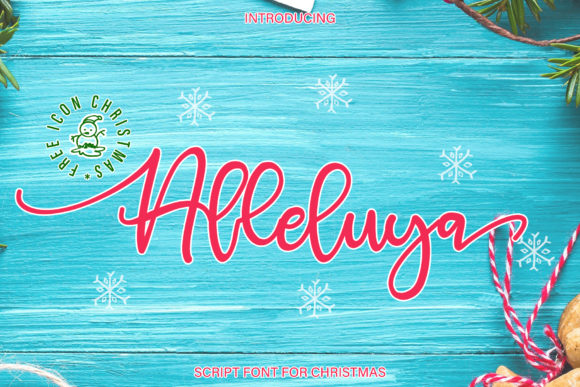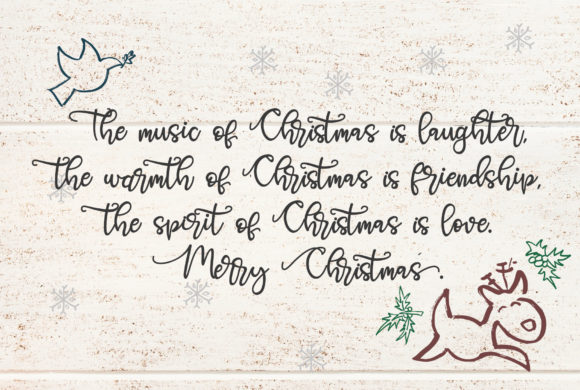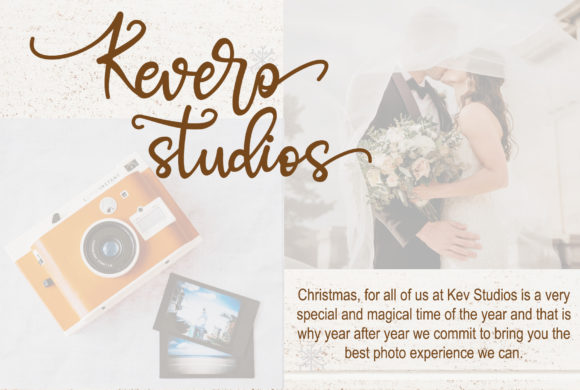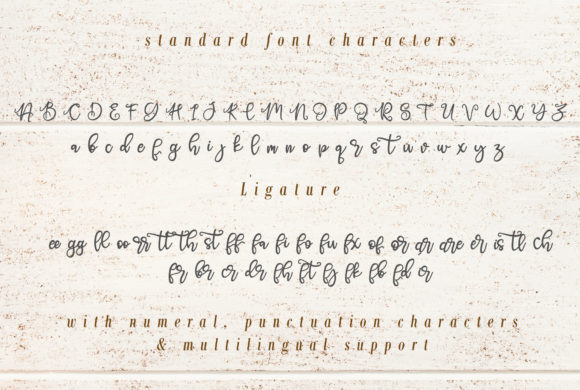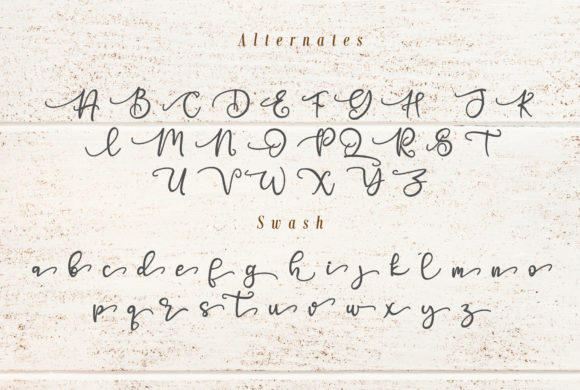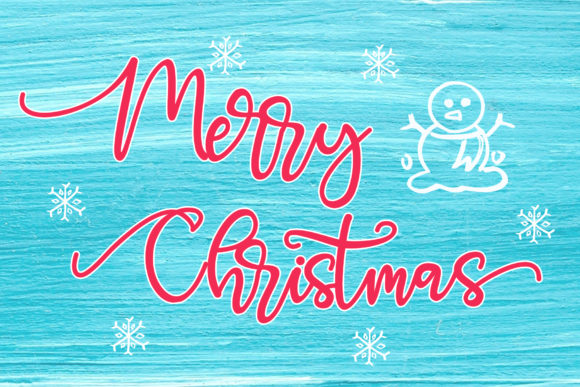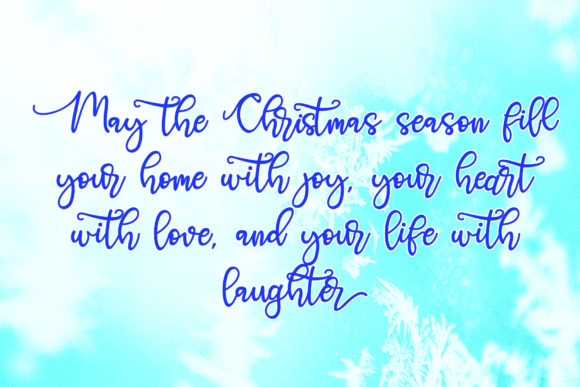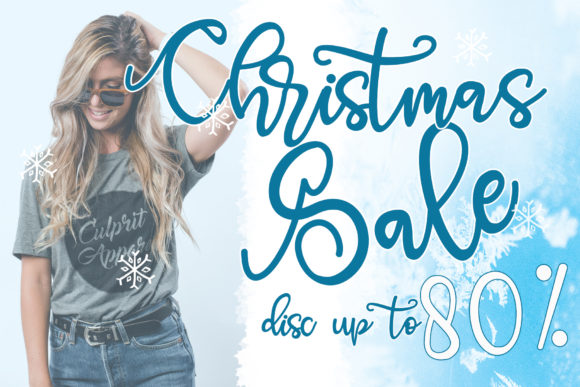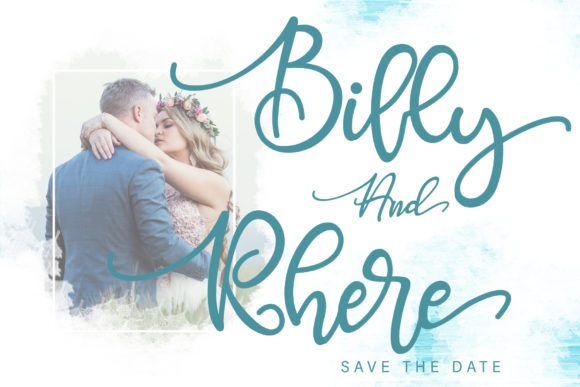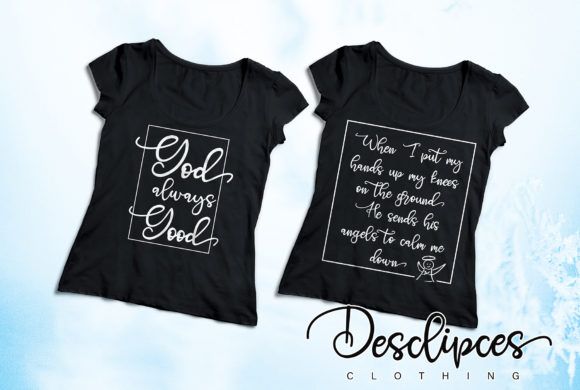
HomeScript FontsAlleluya Font Script Fonts Alleluya Font FacebookXPinterestWhatsApp Alleluya Font Poster 2 Alleluya Font Poster 3 Alleluya Font Poster 4 Alleluya Font Poster 5 Alleluya Font Poster 6 Alleluya Font Poster 7 Alleluya Font Poster 8 Alleluya Font Poster 9 Alleluya Font Poster 10 Alleluya Font Poster 11 Alleluya Font Poster 12 Alleluya Font Poster 13 About Alleluya Font Alleluya is a stunning and unique font family, bringing together an incredible set of icons, and a bold script. DOWNLOAD ON CREATIVE FABRICAThis font is sold and delivered by Creative Fabrica. Font Canyon may earn a commission if you buy through this link. People also explored Quote Font Fight Side Font Farming Font Ink Scribble Font Soulness Font Bolderis Signature Font Aronica Font Happy Shopping Font Geshila Font 335 0 TagsAlleluya Font Previous articleRosemerry Script FontNext articleSweety Lover Font LEAVE A REPLY Cancel reply Comment: Please enter your comment! Name:* Please enter your name here Email:* You have entered an incorrect email address! Please enter your email address here Website: Save my name, email, and website in this browser for the next time I comment. Personal Use Free Aline Personal Use Free Read more about this font Elevate Your Halloween Designs with 500 Free High-Quality PNG Clipart Files Personal Use Free Read more about this font Adelfa Personal Use Free Read more about this font Gaboed Personal Use Free Read more about this font BLOG How to Cut Any Font on Cricut: Convert a Font to SVG (Free) Turn any font into a clean SVG so it cuts crisp on Cricut - a quick 3-step workflow using a free font-to-SVG tool. Using Fonts in Digital Marketing: Tips to Strengthen Your Brand Identity Exploring Font Trends Best Fonts for YouTube Videos: Make Your Thumbnails Stand Out